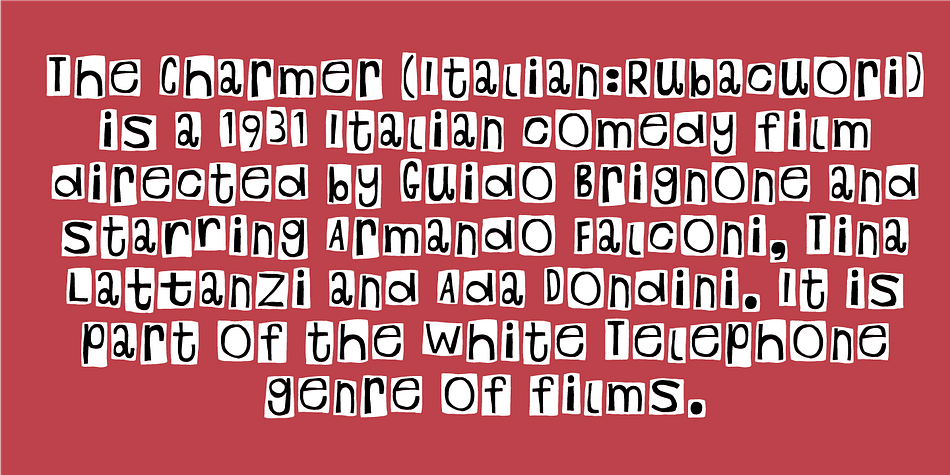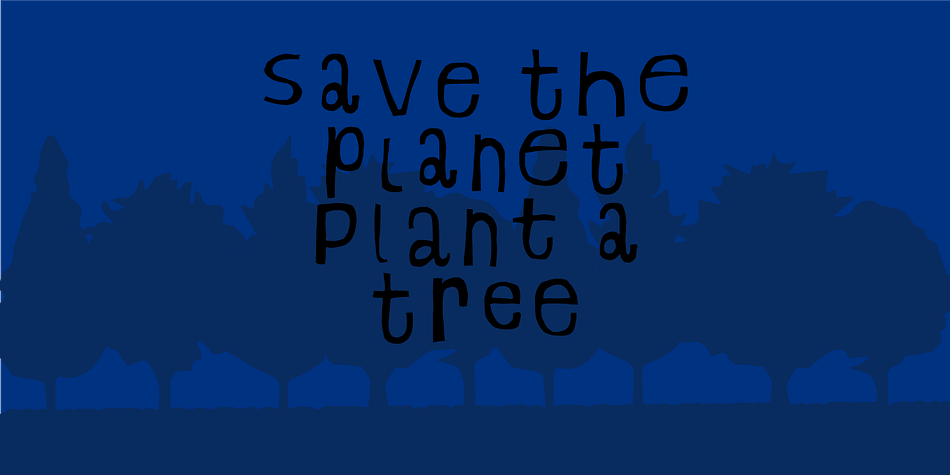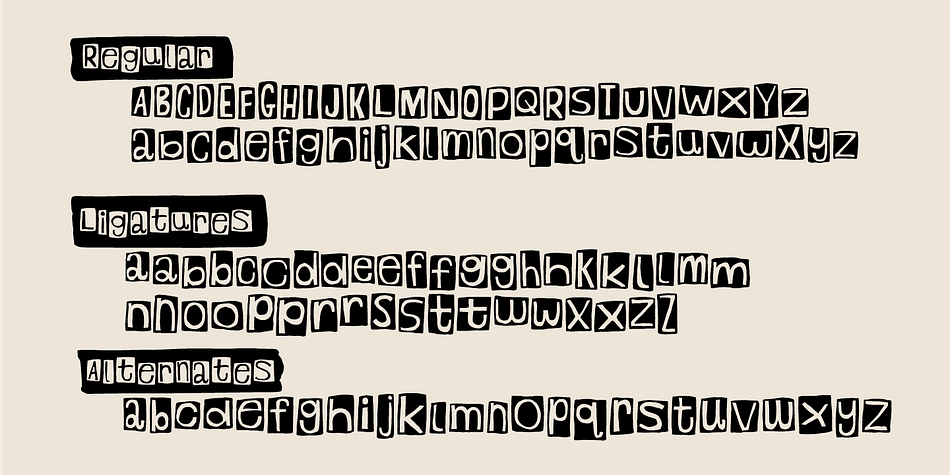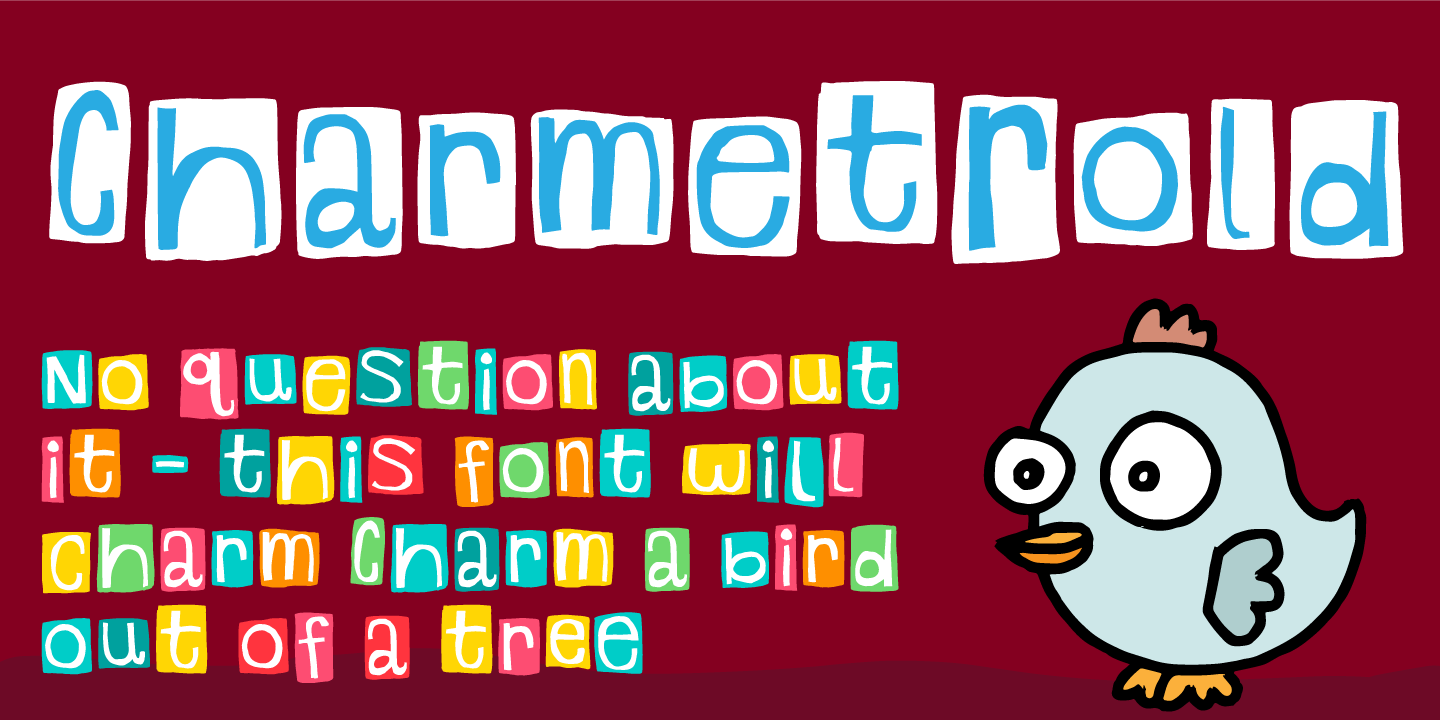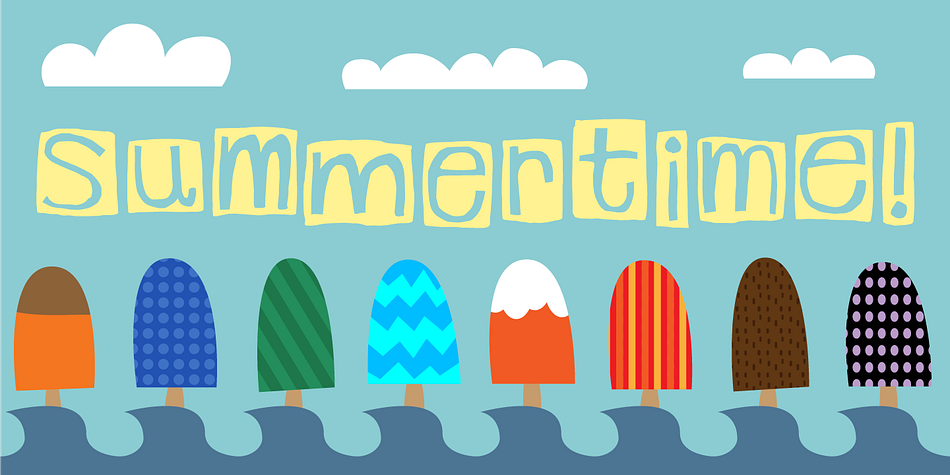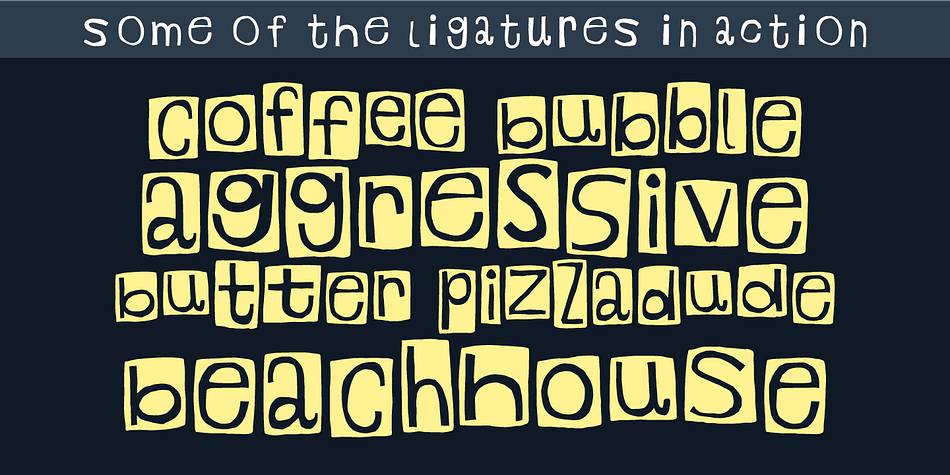
Designed by Jakob Fischer, Charmetrold is a hand display and kids font family. This typeface has three styles and was published by Bogstav.
Charmetrold means charmer in danish. This font may charm a bird out of a tree ... ever heard an expression like that?